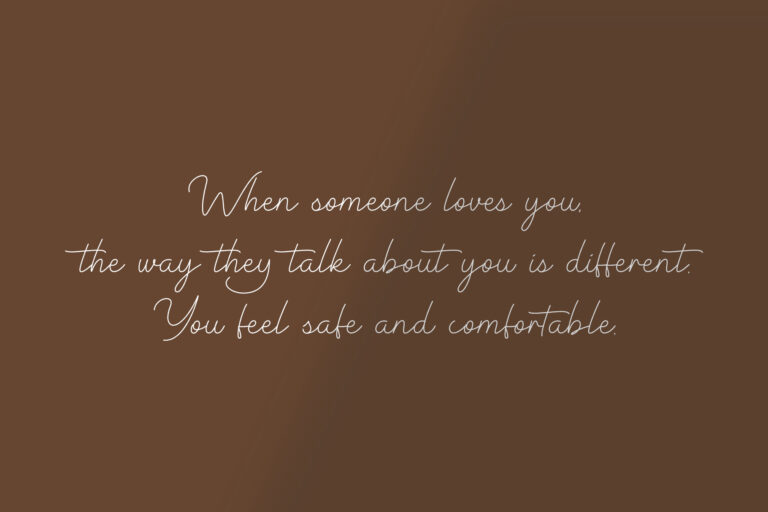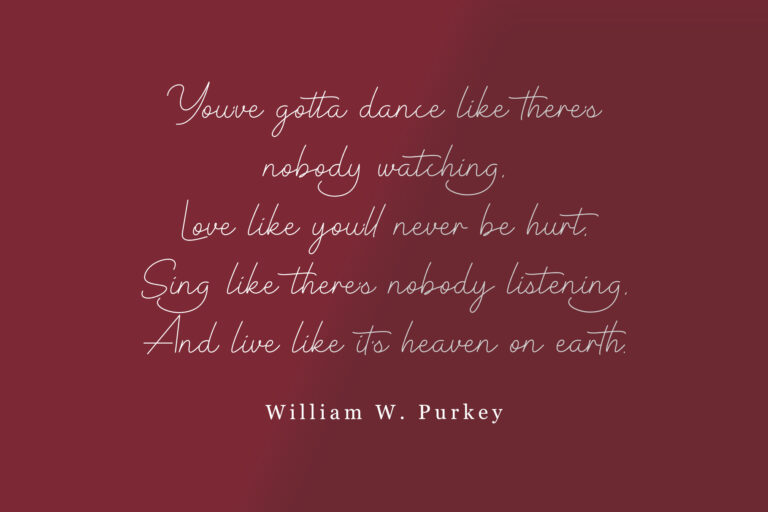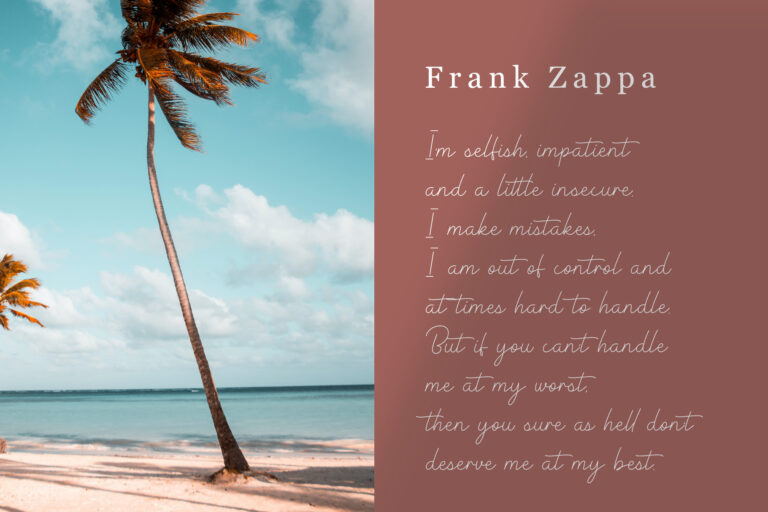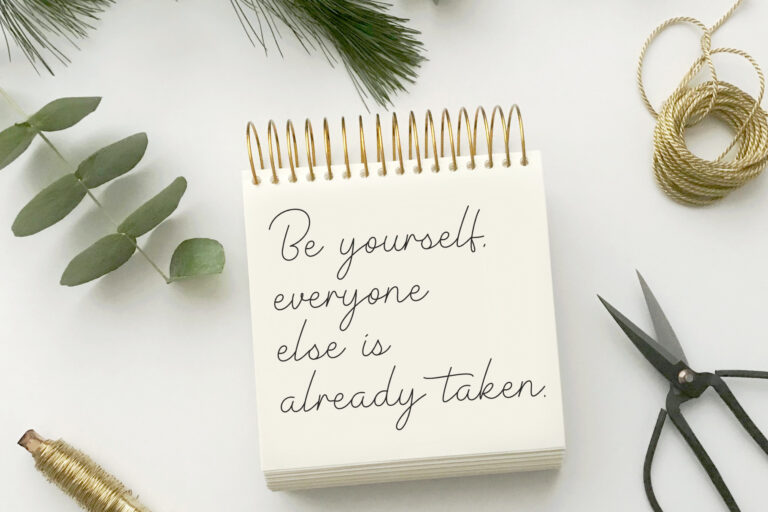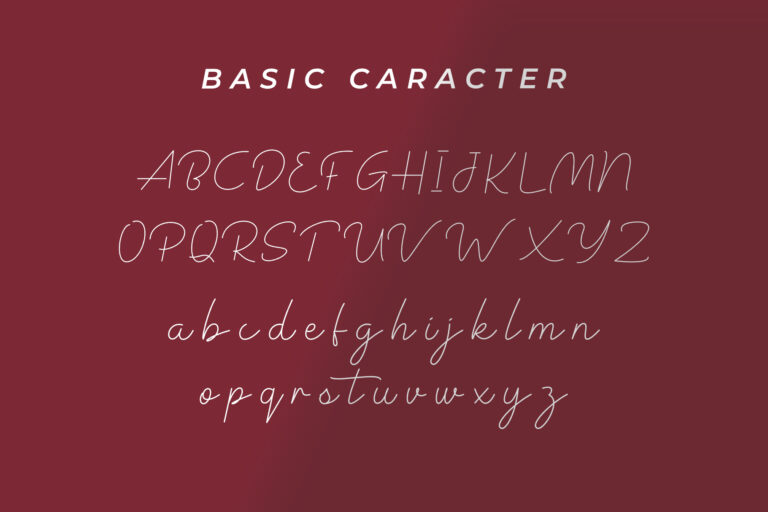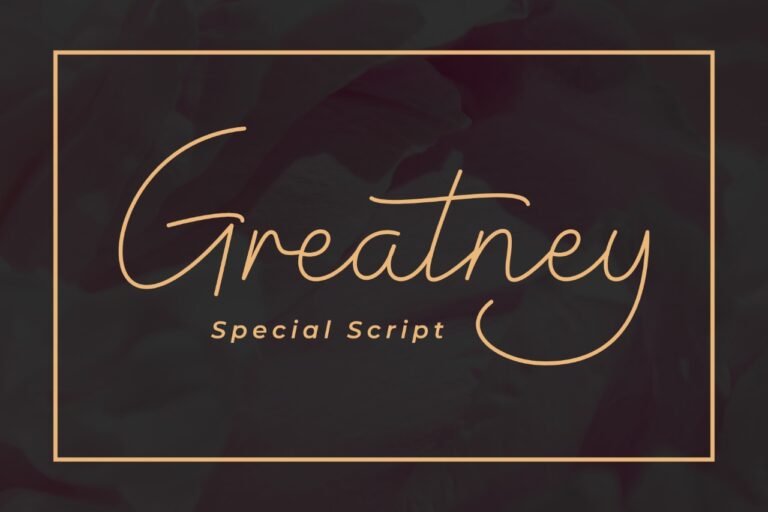
GREATNEY
Introducing Greatney Script an elegant new script font! This font is specially created for those of you who need a touch of elegance to design your projects next with perfect results and amazing.
Greatney Script A very beautiful and interesting font and comes with a perfect line for use for various purposes. Like titles, signatures, logos, correspondence, wedding invitations, letterheads, nameplate, labels, bulletins, posters, badges, Branding, Greeting Cards, etc.